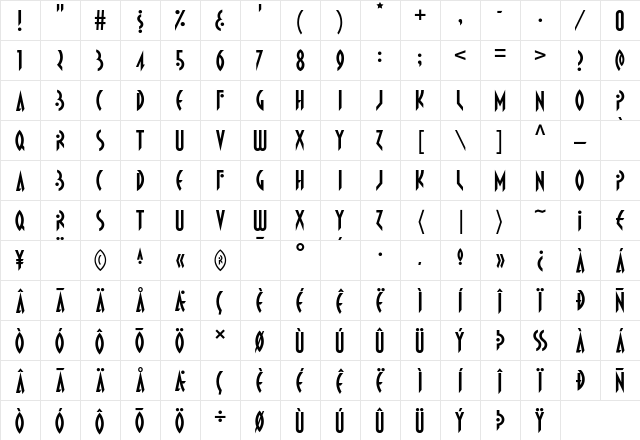
Propaniac Regular Free Font
Propaniac Regular
Design Context for Propaniac
Propaniac is a composed and adaptable typeface that performs quietly and consistently across a wide range of design contexts.